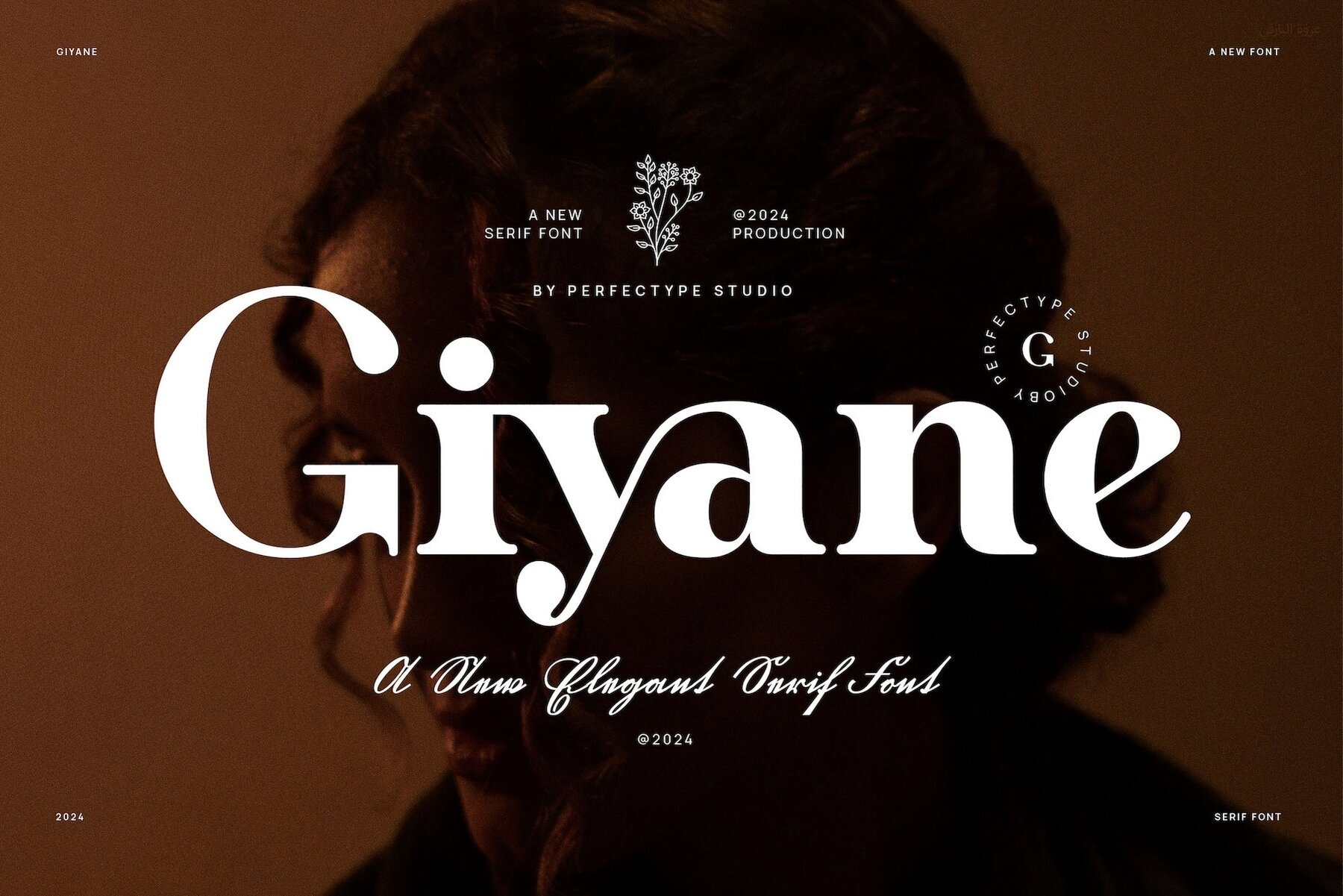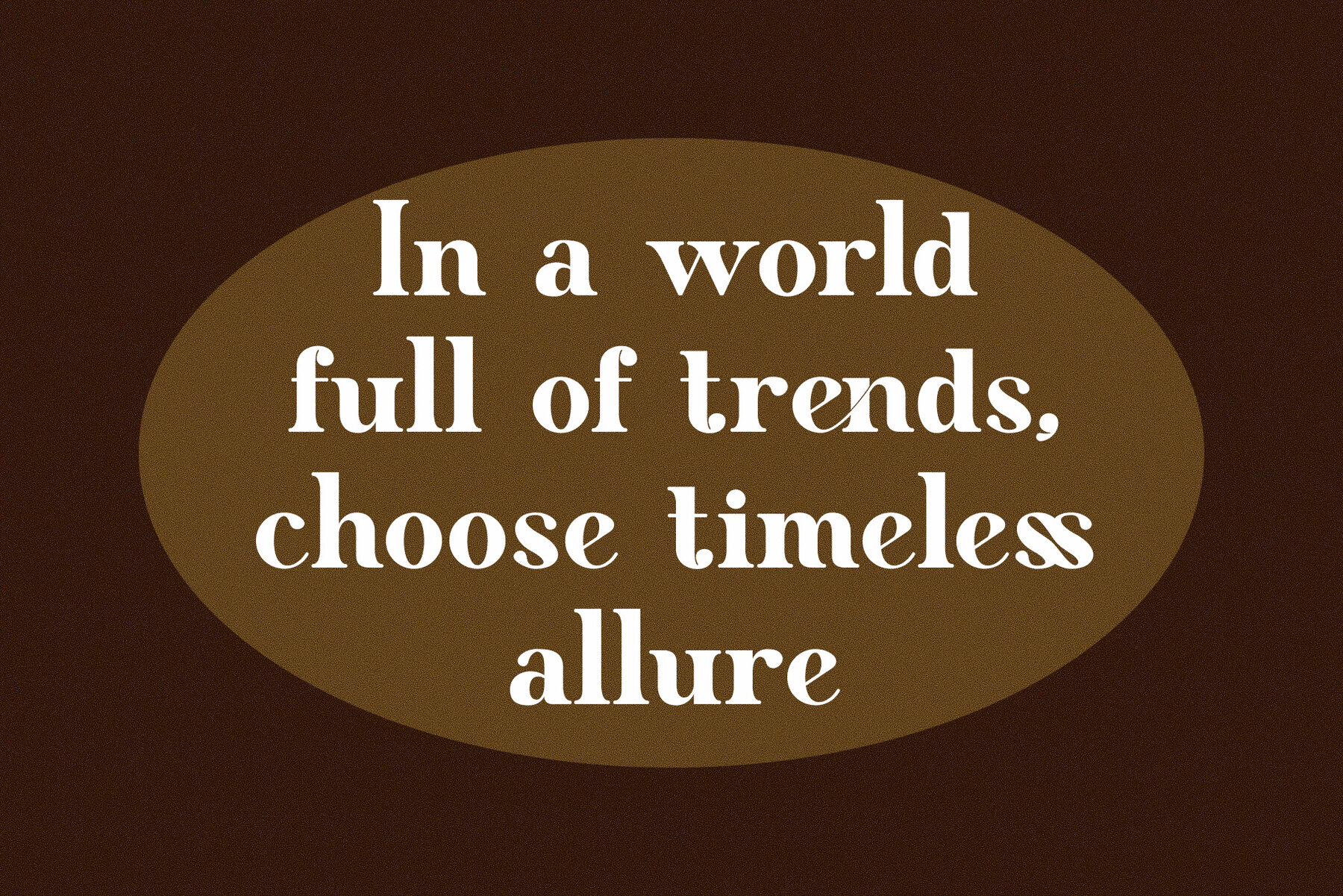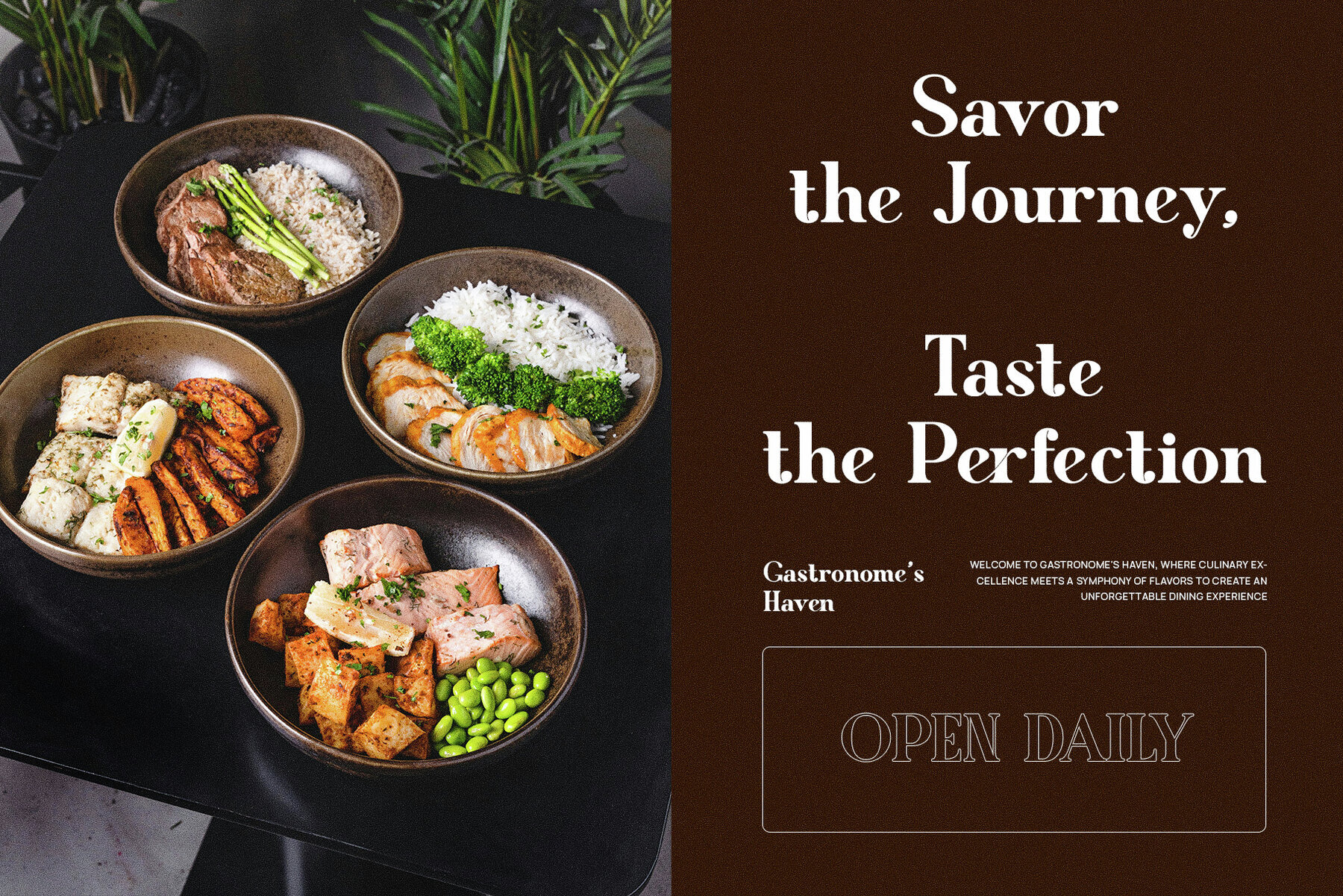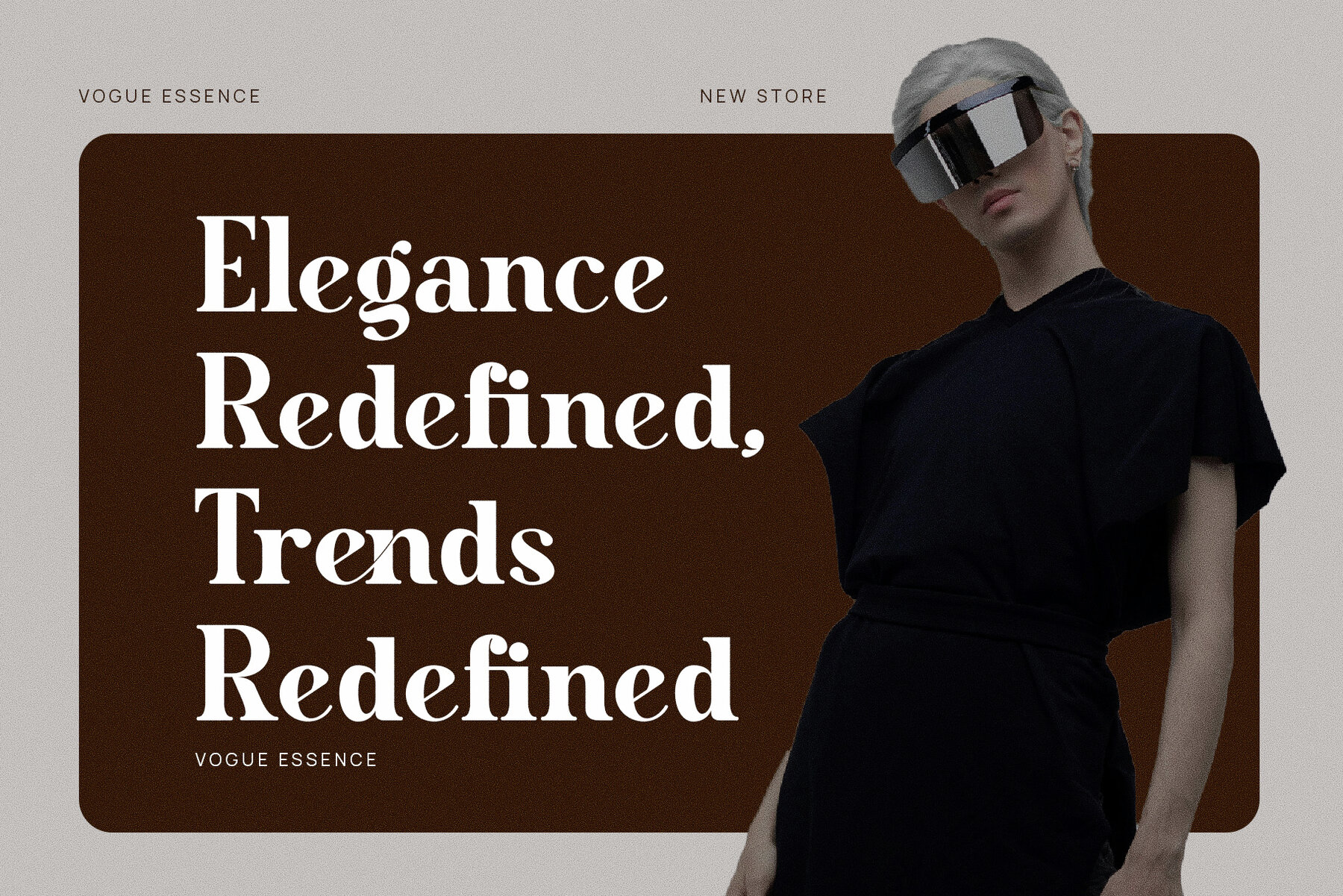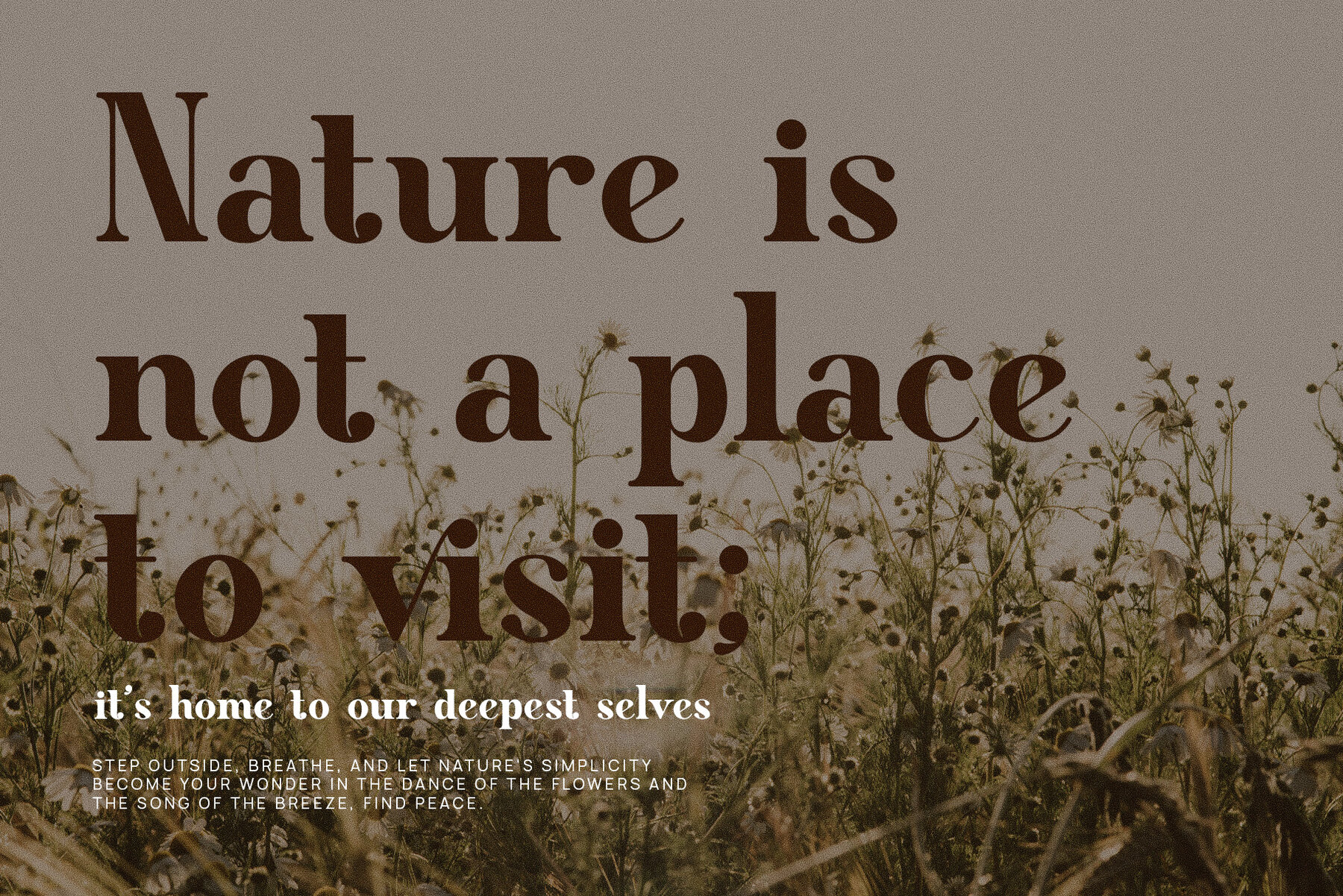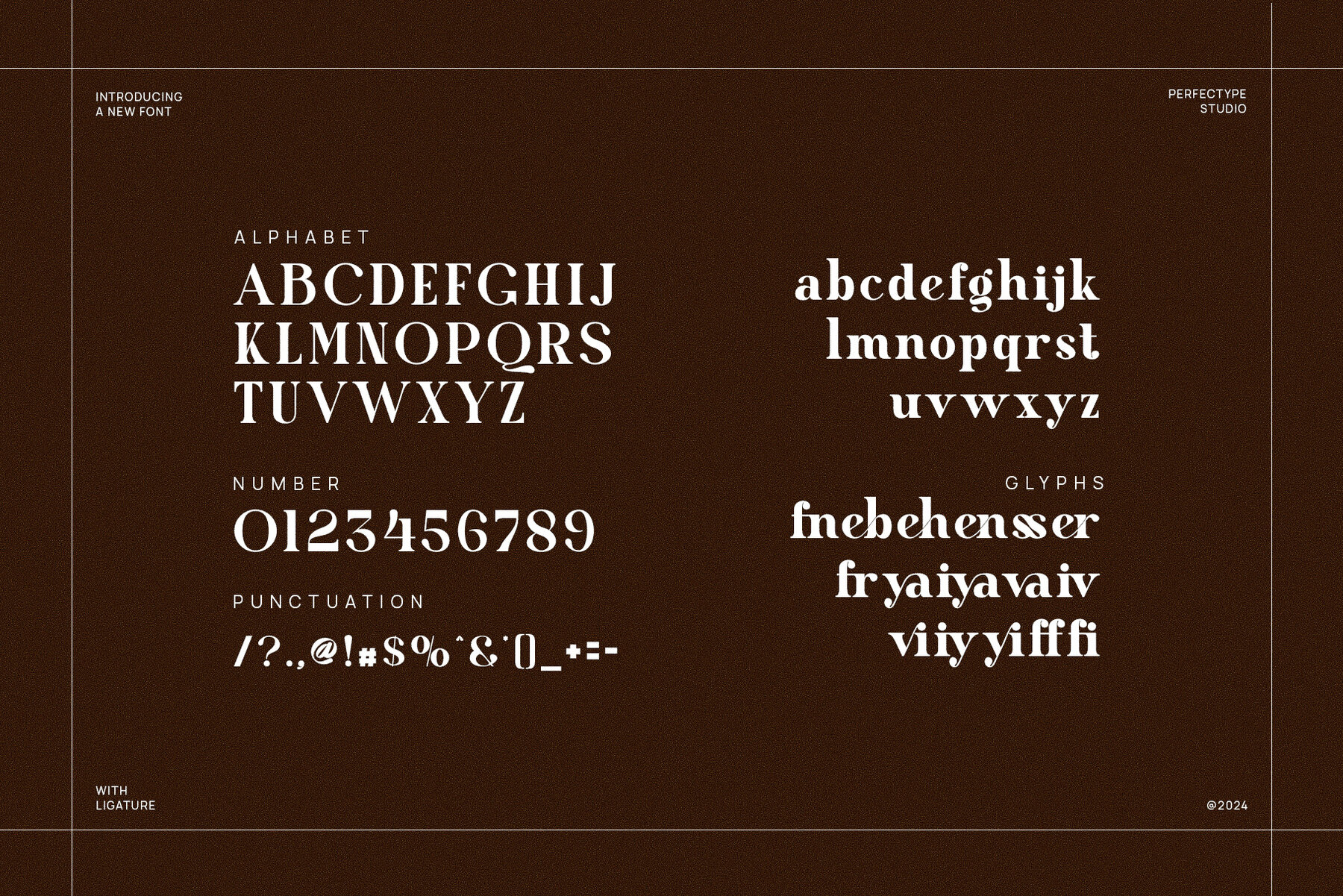
Giyane Font
Giyane
Giyane Elegant Serif Font is a sophisticated typeface that blends modern appeal with classic charm. Its elegant serifs and distinctive letterforms offer a unique and upscale aesthetic, making it a standout choice in various design applications. With refined ligatures and alternate characters, Giyane provides designers the versatility to craft seamless, custom typography that adapts smoothly to different projects. Ideal for high-end branding, this font infuses logos, product packaging, and visual identities with a sense of luxury and professionalism.
Its balanced structure ensures versatility, performing beautifully in both large headlines and smaller text. This makes Giyane suitable for websites, magazines, advertisements, and promotional materials. Perfect for crafting designs for chic boutiques, upscale food labels, or stylish editorial layouts, it adds elegance and refinement to every project. Giyane is particularly fitting for fashion, lifestyle, food, and boutique brands, where modern sophistication is essential. The font's timeless design maintains consistency and visual impact across digital and print media, ensuring a memorable and high-end branding presence.